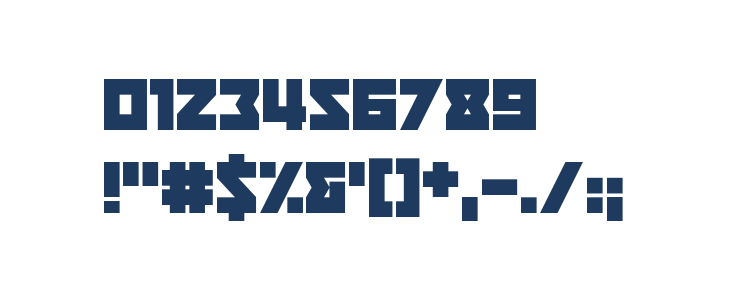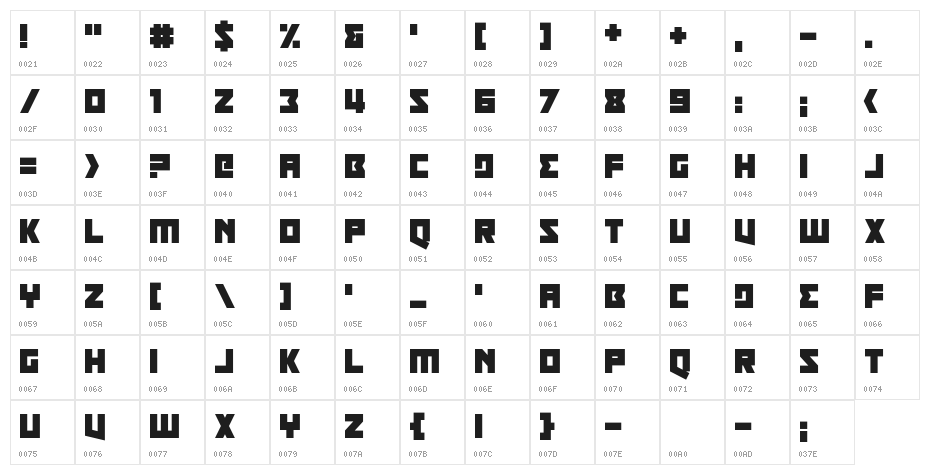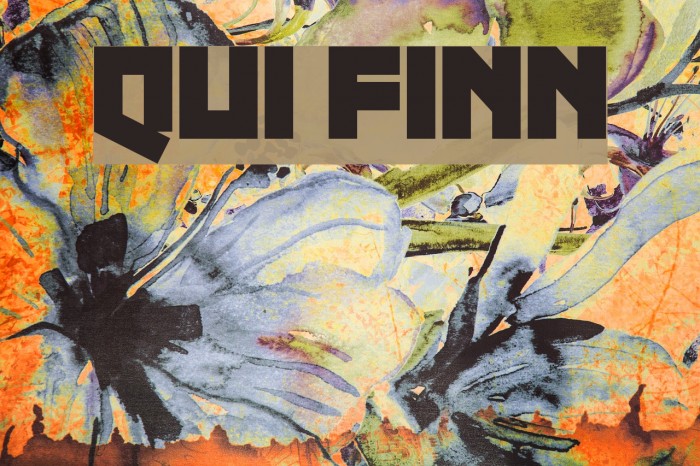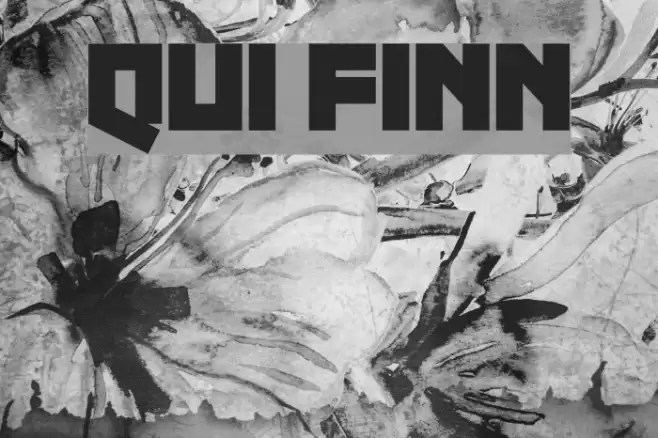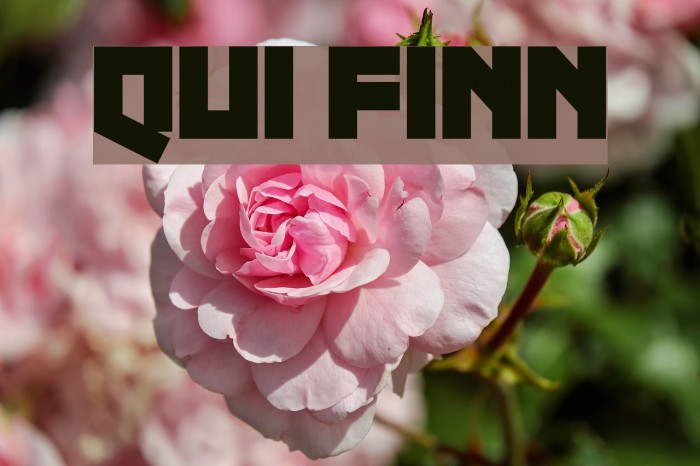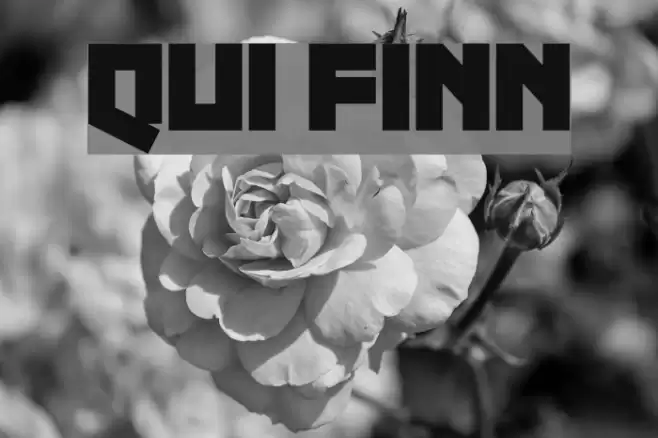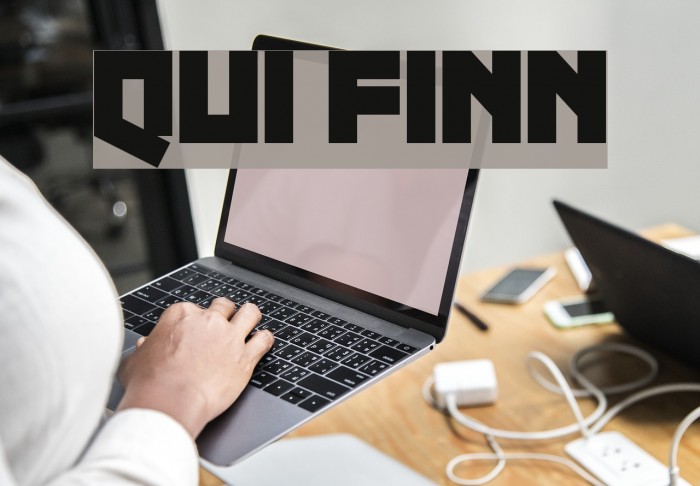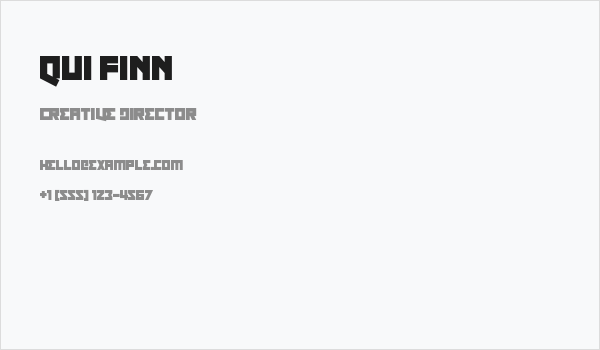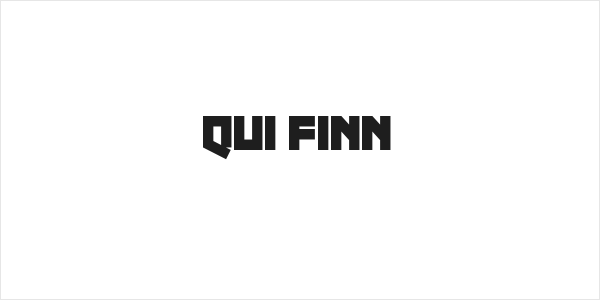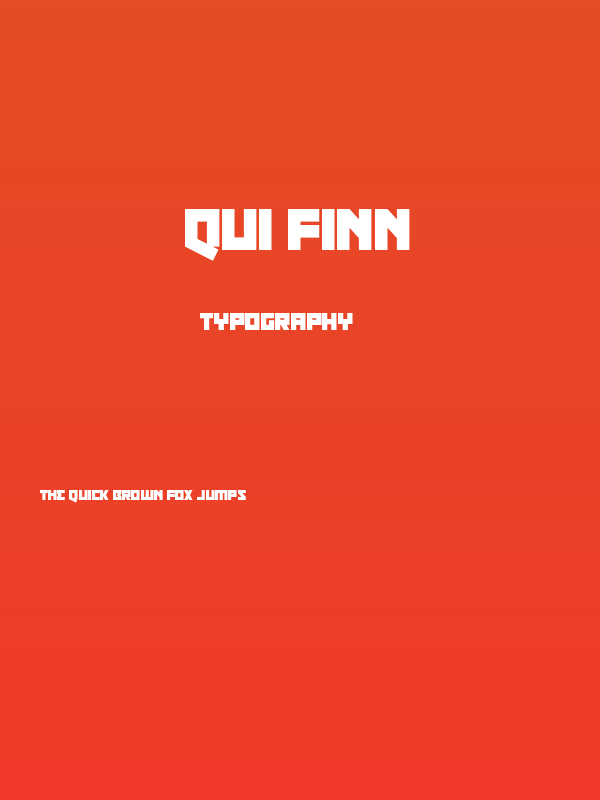
Qui Finn Font
Qui Finn Description
This font features a bold and geometric design with sharp angles and a blocky appearance. The characters are uniformly thick, creating a strong visual impact. The uppercase and lowercase letters maintain a consistent style, with the lowercase mirroring the uppercase in form. The numbers and special characters follow the same angular and bold aesthetic, ensuring a cohesive look across all glyphs. This font's distinct style makes it ideal for attention-grabbing designs.
| Proposed Projects | Ideal for posters, logos, video game graphics, and branding materials that require a strong, modern look. |